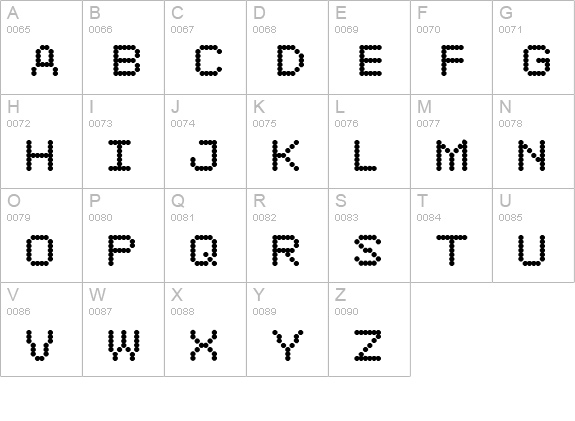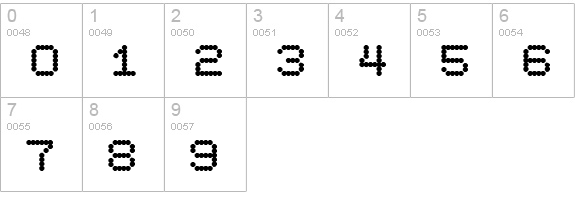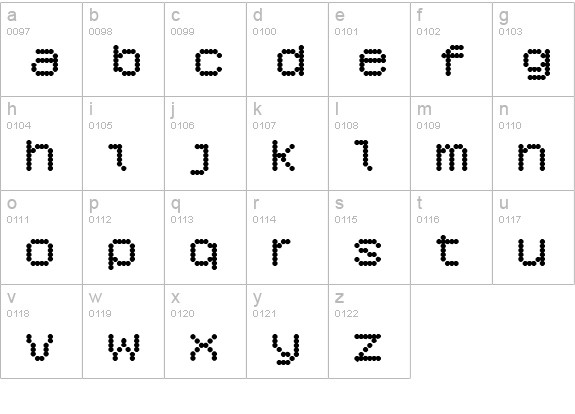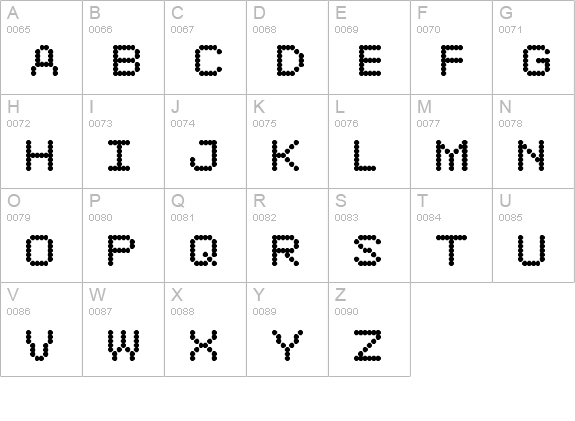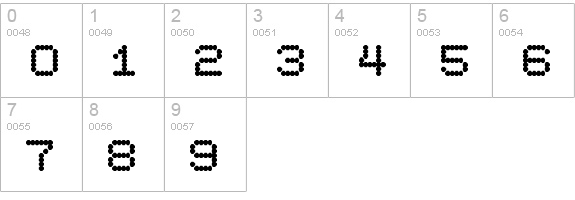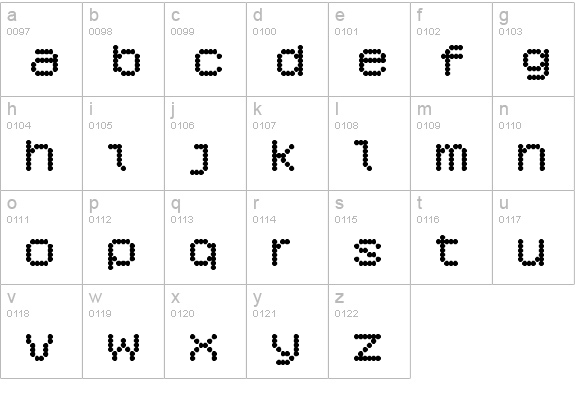
6x7oct Black is a maximum-weight, dramatic variant in the 6x7oct typeface family \xE2\x80\x94 well suited to maximum-impact headlines, posters, and packaging.
The 6x7oct Black font is a bold and striking typeface that commands attention with its unique design. Its angular shapes and precise lines give it a modern and edgy look, making it perfect for projects that require a strong visual impact. This versatile font is ideal for headlines, posters, logos, and more. Best of all, the 6x7oct Black font is available for free download at FontsMarket.com. Simply visit the website to access this eye-catching font and enhance your design projects with its bold style. Don't miss out on this opportunity to add a touch of sophistication and flair to your work with the 6x7oct Black font, now freely available for your creative endeavors.